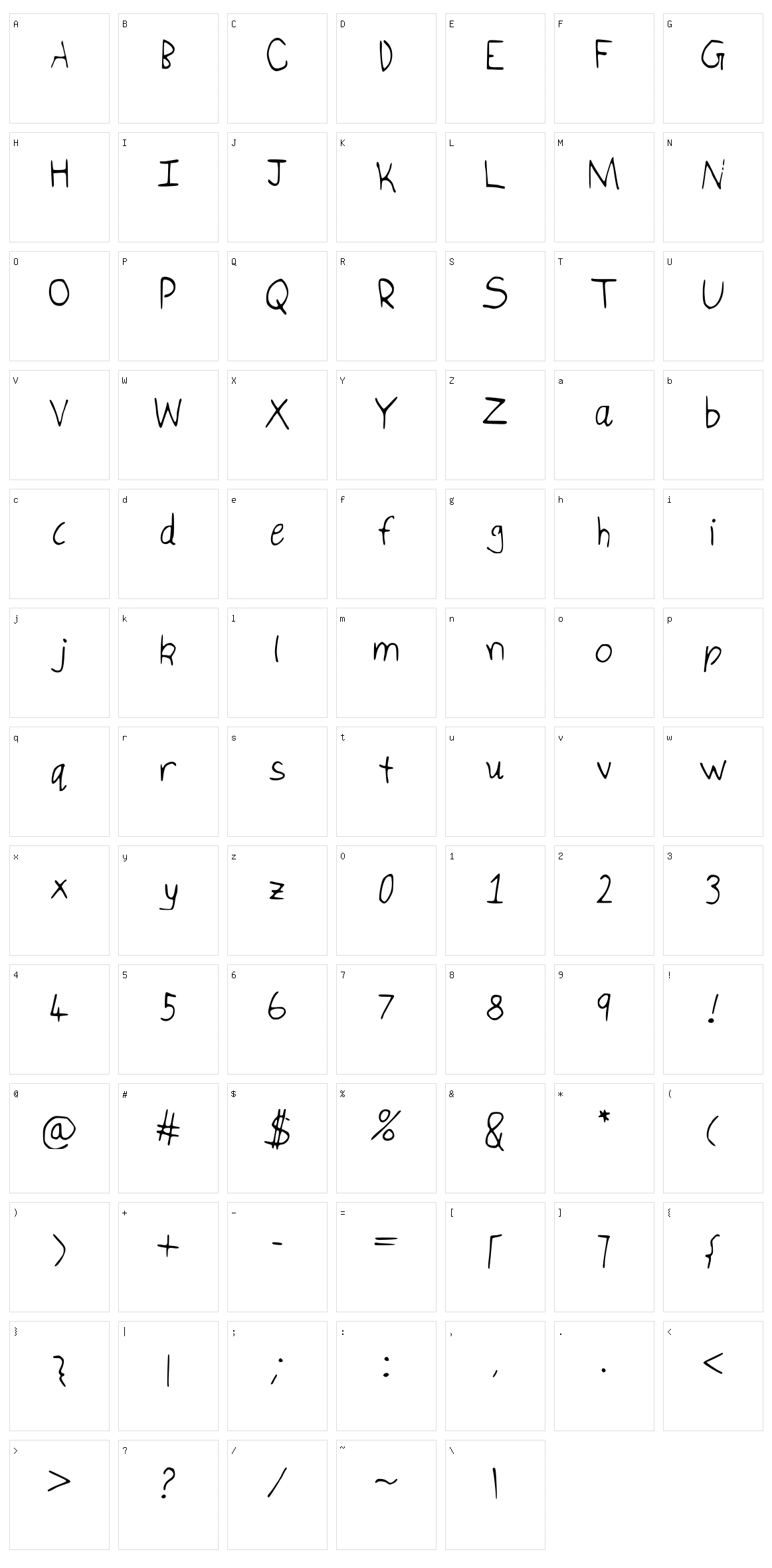
The free font Isuka Letters is carefully designed by Isuka Muhtumuni, showcasing a thoughtful balance of creativity and usability and falls under the Script font style. When you download the ZIP file, it contains only 12.74 KB of font files, making it lightweight and quick to download. Please review the license details below to understand permitted usage and distribution rights. If license information is not available, we recommend using this font for personal projects only or contacting the author directly for commercial usage permissions.
This font was created by Isuka Muthumuni.